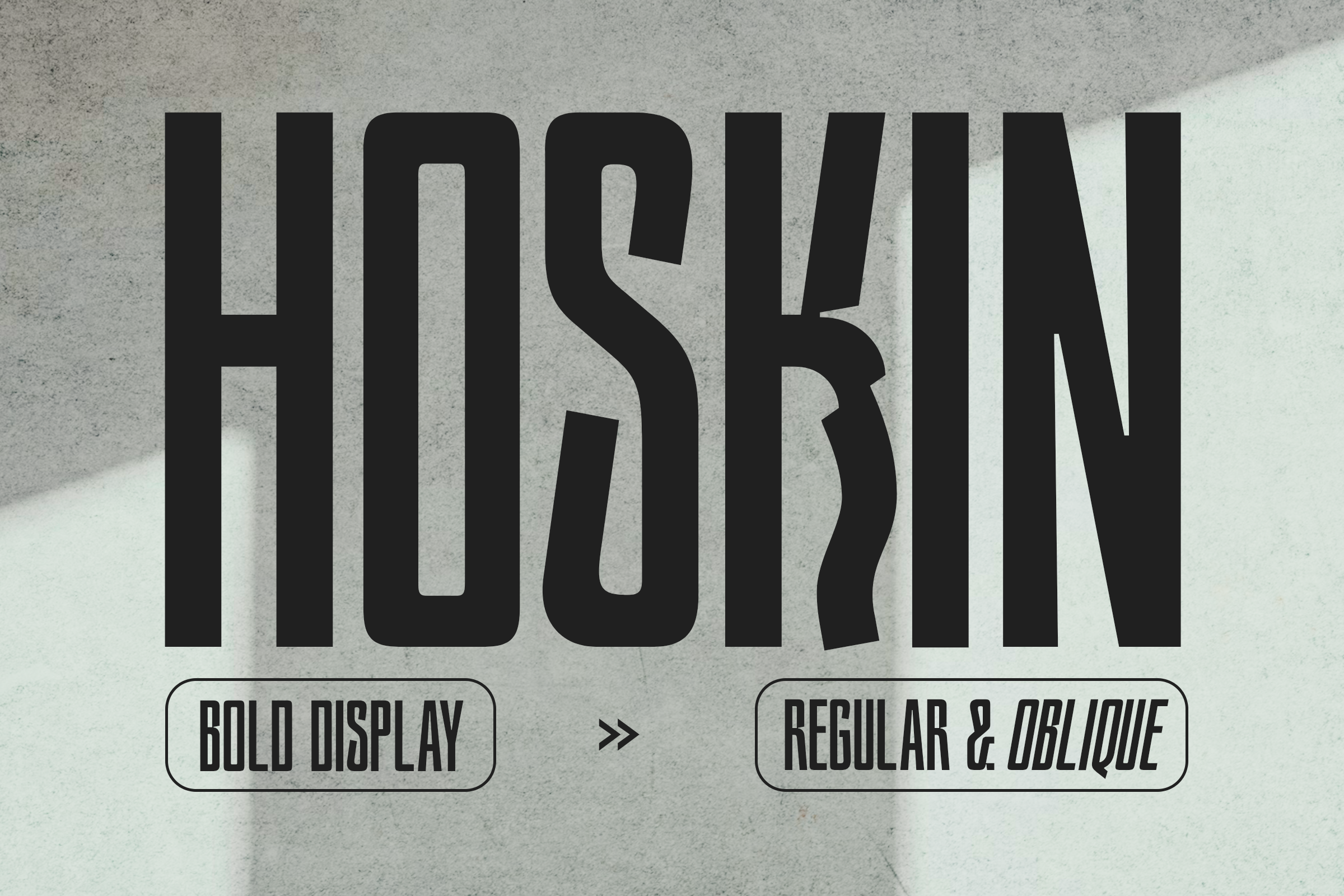
Hoskin - Condensed Sans Serif Fonts
Hoskin is a unique condensed sans serif display font that features stylish alternate characters.
This makes Hoskin perfect for creating logos and headlines that are striking without being too over the top.
Includes 2 styles, Regular & Oblique, with multilingual characters.